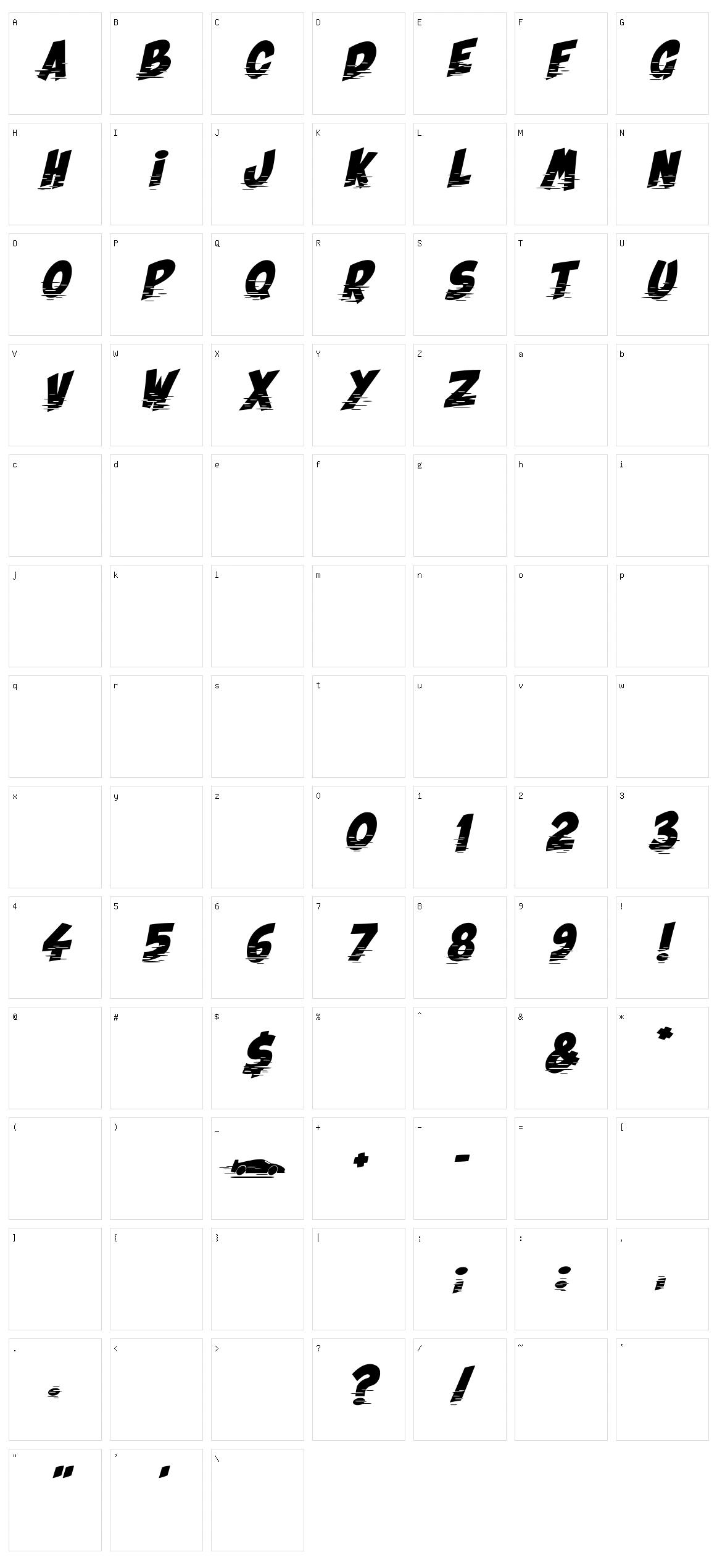
The free font Vraoum is carefully designed by imagex, showcasing a thoughtful balance of creativity and usability and falls under the Cartoon font style. When you download the ZIP file, it contains only 14.65 KB of font files, making it lightweight and quick to download. Please review the license details below to understand permitted usage and distribution rights. If license information is not available, we recommend using this font for personal projects only or contacting the author directly for commercial usage permissions.